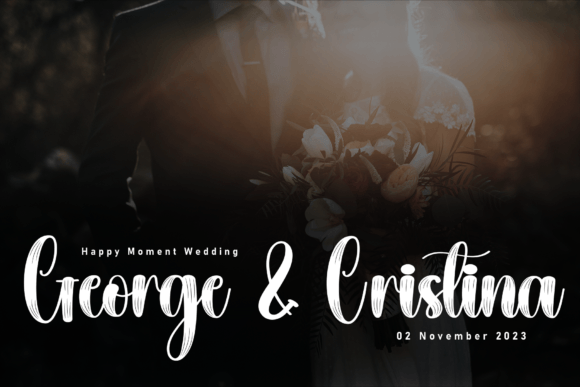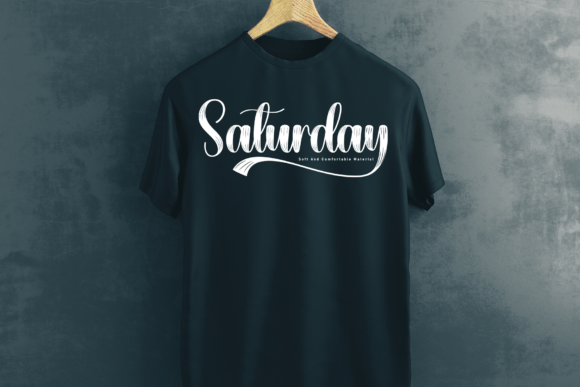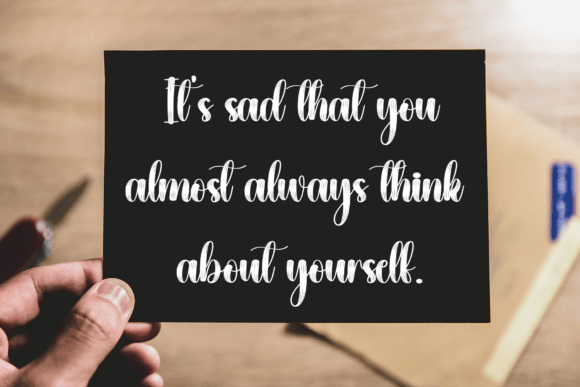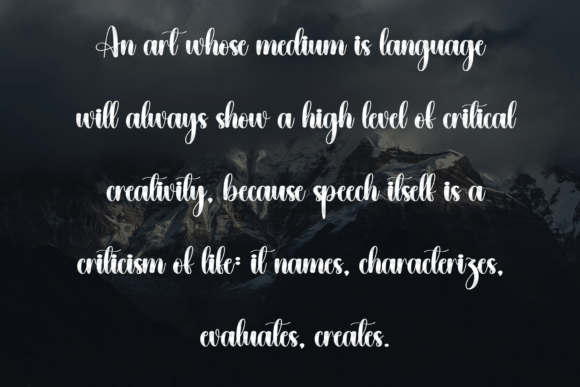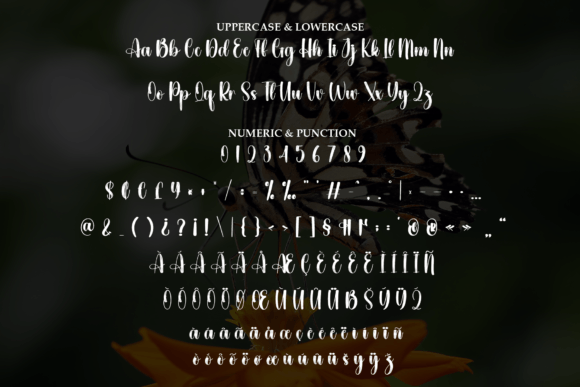
Introducing the Butterfly Font: Elevate Your Designs with Elegance
Are you on the hunt for a font that exudes elegance and sophistication? Look no further than the Butterfly Font, a stunning handwritten font that is sure to capture your heart. With its flowing lines and timeless style, this font is perfect for designers and crafters looking to add a touch of whimsy and refinement to their projects.
What is the Butterfly Font?
The Butterfly Font is a beautiful, handwritten font that is characterized by its elegant touch. Its unique, flowing lines give it a distinct and sophisticated look that is sure to make your designs stand out. Whether you’re working on a branding project, a wedding invitation, or a craft project, this font is sure to add a touch of class and sophistication.
Key Features of the Butterfly Font
- Elegant and Refined: The Butterfly Font boasts an incredibly elegant and refined style that is perfect for designs that require a touch of sophistication.
- Flowing Lines: The font’s flowing lines give it a beautiful, organic feel that is sure to add a touch of whimsy to your designs.
- Timeless Style: The Butterfly Font has a timeless style that will never go out of fashion. Its classic look ensures that your designs will remain relevant for years to come.
- Distinct and Readable: The font’s unique style makes it incredibly readable, even at small sizes. This ensures that your designs will be easy to read and understand.
The Butterfly Font is perfect for a wide range of projects, including:
- Branding and Logos: Add a touch of elegance and sophistication to your brand with this beautiful font.
- Wedding Invitations: Make your wedding invitations truly special with the Butterfly Font’s elegant and refined style.
- Craft Projects: Add a touch of whimsy and personality to your craft projects with this beautiful font.
- Digital Designs: Use the Butterfly Font to add a touch of elegance and sophistication to your digital designs, including social media graphics and website headers.
Why Choose the Butterfly Font?
There are many reasons why you should choose the Butterfly Font for your next project. Here are just a few:
- Unique Style: The Butterfly Font has a unique and distinctive style that will set your designs apart from the crowd.
- Elegant and Refined: The font’s elegant and refined style makes it perfect for designs that require a touch of sophistication.
- Easy to Read: The font’s flowing lines and classic style make it incredibly easy to read, even at small sizes.
- Versatile: The Butterfly Font is perfect for a wide range of projects, from branding and logos to wedding invitations and craft projects.
The Butterfly Font is a beautiful, elegant handwritten font that is perfect for designers and crafters looking to add a touch of sophistication to their projects. With its flowing lines, timeless style, and distinct look, this font is sure to make your designs stand out. Whether you’re working on a branding project, a wedding invitation, or a craft project, the Butterfly Font is the perfect choice.